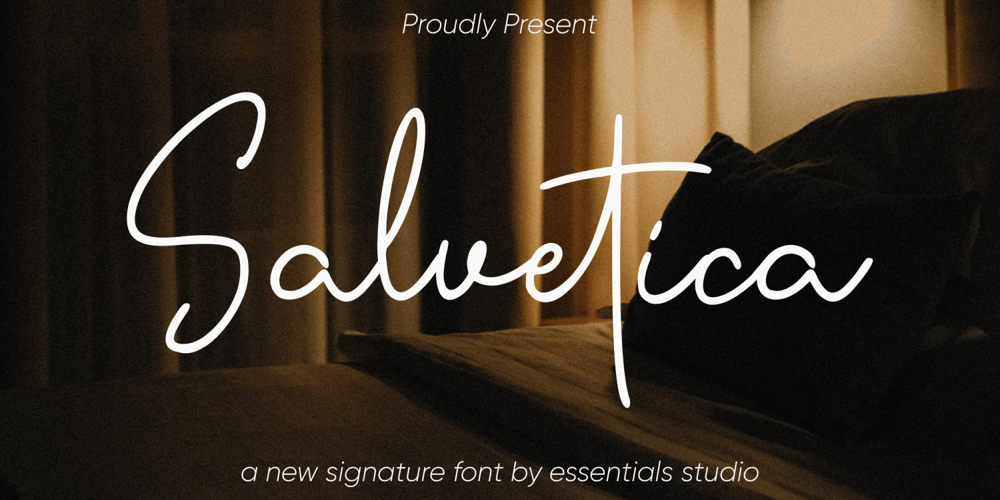
Salvetica Font Family was designed by Sulthan Mada Maulana Tsani and published by Essentials Studio. Salvetica contains 1 styles and family package options. Salvetica feels equally charming and elegant. It looks stunning on wedding invitations, thank you cards, quotes, greeting cards, logos, business cards and every other design which needs a handwritten touch. It is also PUA encoded which means you can access all of the glyphs and swashes with ease!